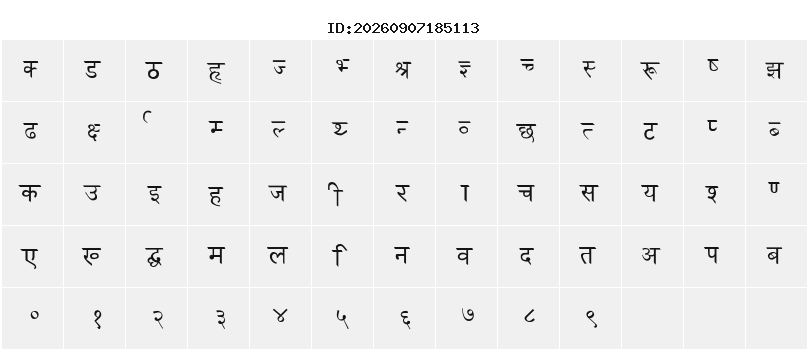
Udgam Preview
• Font Name: Udgam
• Full Font Name: Udgam
About Udgam.ttf
Udgam.ttf is a modern, elegant sans-serif font designed for ultimate readability and visual harmony. Perfect for branding, headlines, web design, and print materials.